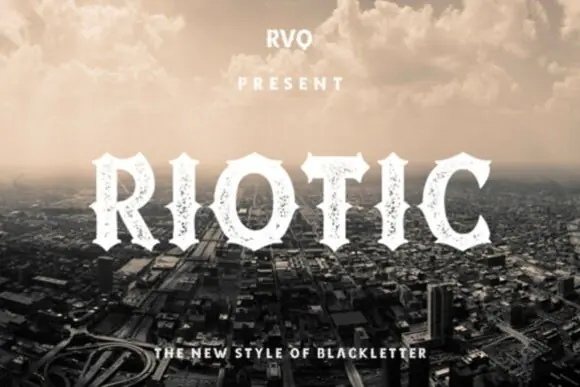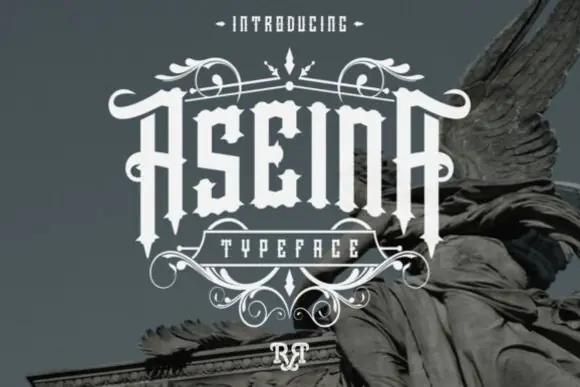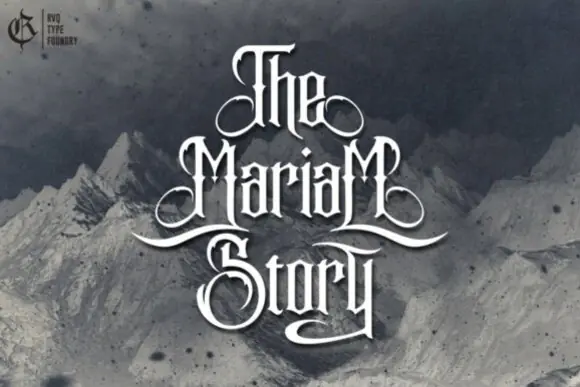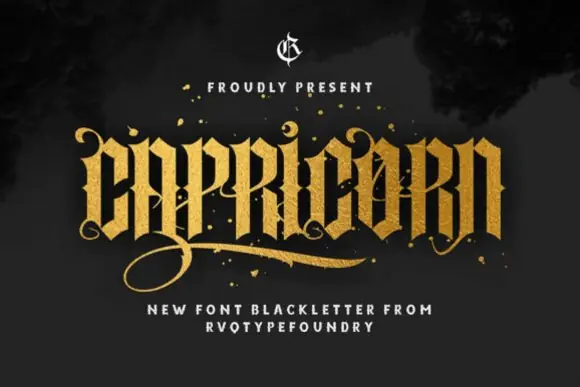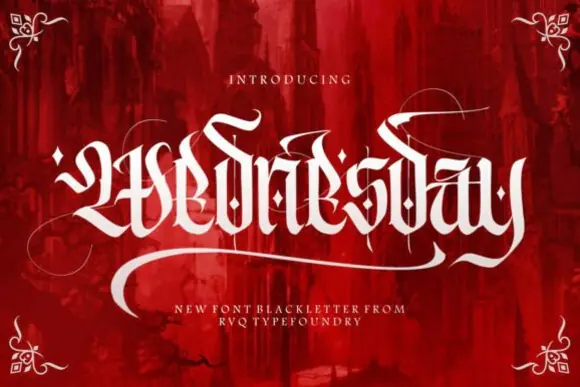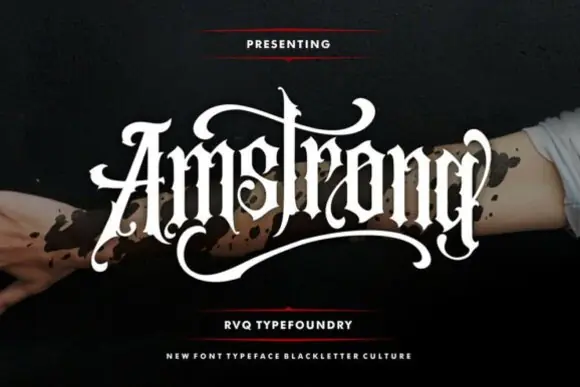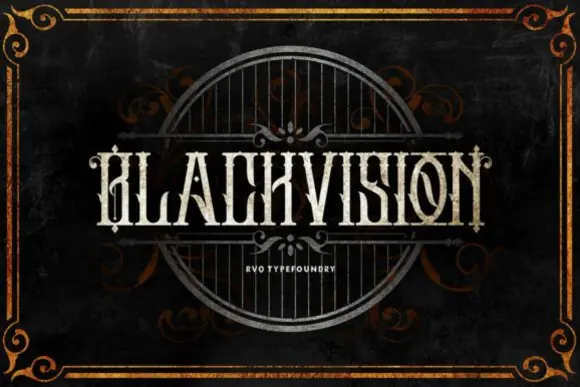
Blackletter Bundle Font | 8 Gothic Typeface Collection with Vector Ornaments for Logos, Streetwear Branding, Posters, Brewery Labels, Album Covers & Medieval Designs
Create bold, dramatic, and unforgettable typography with the Blackletter Bundle Font, a powerful gothic font collection designed for modern creators who love medieval artistry, vintage character, and high-impact design. This bundle includes 8 professional-grade blackletter typefaces, giving you a versatile set of fonts for projects that need authority, mystery, elegance, and historic grit.
From sharp, aggressive gothic letterforms to elegant flowing blackletter curves, this collection helps you design everything from luxury streetwear branding to cinematic poster art. Each font brings its own personality while staying connected through a strong gothic and medieval-inspired aesthetic.
This bundle is perfect for designers, branding creators, apparel sellers, tattoo artists, poster designers, music artists, game designers, and small business owners who want a complete typography toolkit for bold visual projects. Whether you are creating a high-end streetwear logo, heavy metal album cover, fantasy book title, vintage brewery label, gothic wedding invitation, tattoo flash design, or medieval-themed merchandise, this font bundle gives your designs a professional and memorable look.
As a bonus, the bundle also includes vector ornaments that can be used to enhance your typography with decorative flourishes, frames, borders, and vintage-inspired details. These ornaments pair beautifully with blackletter fonts and help create a fully immersive, ornate design style.
• Gothic logo design
• Streetwear branding
• Apparel and t-shirt designs
• Cinematic movie posters
• Heavy metal album covers
• Fantasy book covers
• Vintage brewery logos
• Product labels and packaging
• Tattoo-inspired artwork
• Gaming titles
• Medieval-themed designs
• Event flyers
• Barbershop branding
• Stickers and merchandise
• Luxury gothic branding
Key Features
• Includes 8 professional blackletter typefaces
• Bonus vector ornaments included
• Modern gothic and medieval-inspired style
• Perfect balance of traditional craftsmanship and digital precision
• Sharp, bold, mysterious, and elegant typography options
• Great for logos, posters, apparel, labels, and branding
• Ideal for both vintage and modern design projects